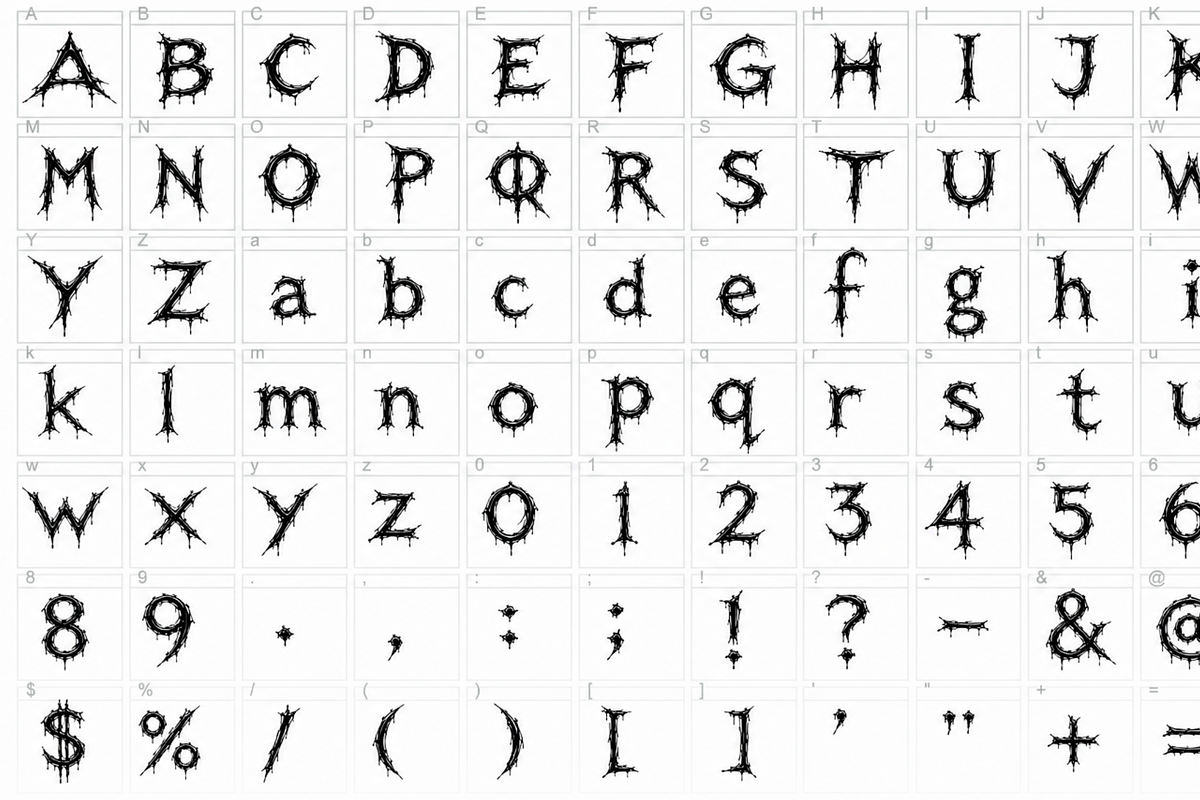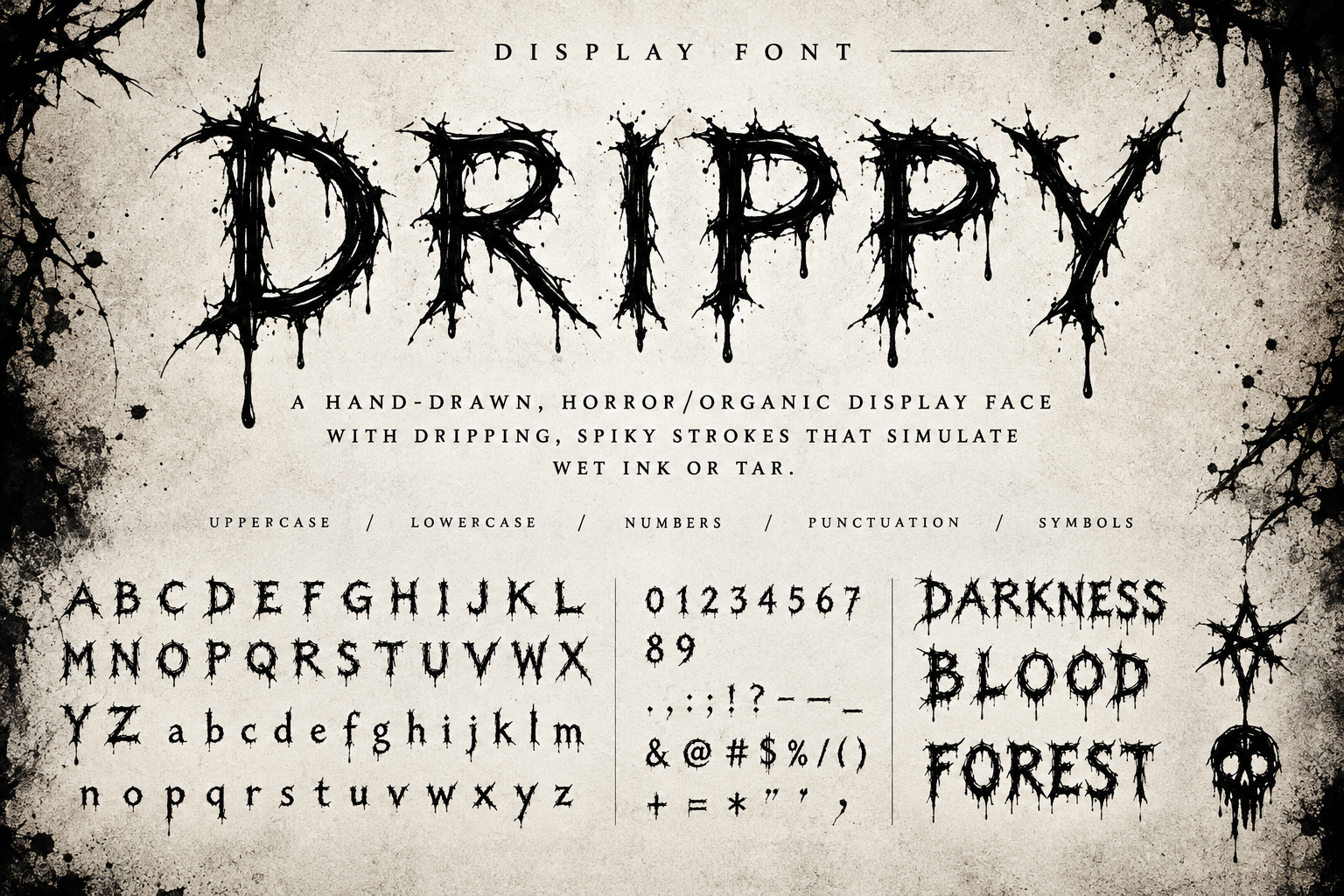
Buaaah Font
DRIPPY is a hand-drawn horror display font with a raw, organic character. Its sharp, spiky strokes, irregular contours, and dripping details create the look of wet ink, black tar, or something freshly scratched into an ancient surface.
Designed to feel dark, unsettling, and highly expressive, DRIPPY brings a distinctive handmade texture to any project that needs a sinister or underground atmosphere.
Perfect for horror posters, movie titles, album covers, heavy metal artwork, Halloween designs, dark branding, apparel, book covers, game graphics, tattoos, logos, and atmospheric editorial designs.
The rough edges and organic imperfections give every word a unique, almost alive appearance — somewhere between decayed gothic lettering, dripping ink, and twisted organic forms.
DRIPPY includes:
Uppercase & lowercase characters
Symbols
Hand-drawn, irregular letterforms
Spiky and dripping decorative details
A distinctive horror / dark fantasy aesthetic
Create titles that feel DARK. WILD. ORGANIC. ALIVE.